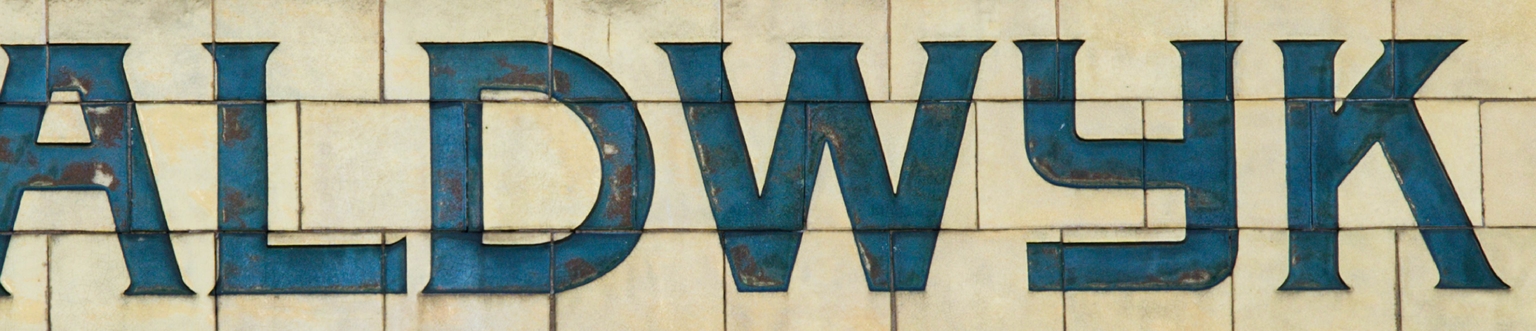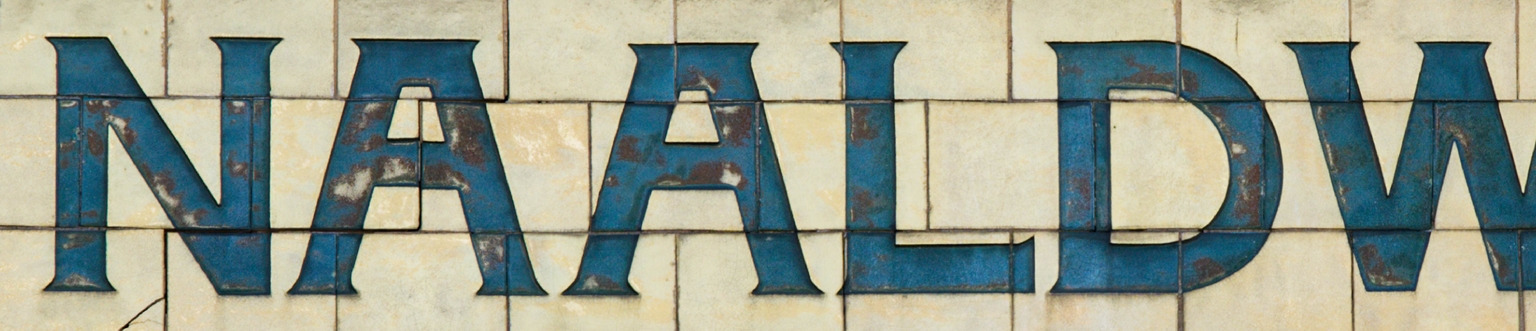
Tramstop
Tramstop is a display typeface designed by Ramiro Espinoza and inspired by the lettering found at a former tram station located at Verspycklaan 1 in Naaldwijk, the Netherlands. The original inscription features a distinctive technical serif style—a constructed, modular alphabet that combines the structure of a geometric sans serif with short, carefully attached terminal serifs. This hybrid approach, popular in the early decades of the twentieth century, gives the letters a precise, engineered appearance while retaining a subtle sense of ornament.
Espinoza studied the features and proportions of the original letterforms and translated them into a contemporary digital typeface. Rather than reproducing the signage exactly, he refined the geometry, improved overall consistency, and expanded the character set to support modern typographic use while preserving the mechanical character and visual balance of the source.
With its clear construction and distinctive serif detailing, Tramstop is well suited for signage, posters, editorial design, branding, websites, and cultural projects that benefit from an expressive typographic voice. Rooted in architectural lettering and transport infrastructure, the typeface brings a small fragment of Dutch urban history into contemporary graphic design.